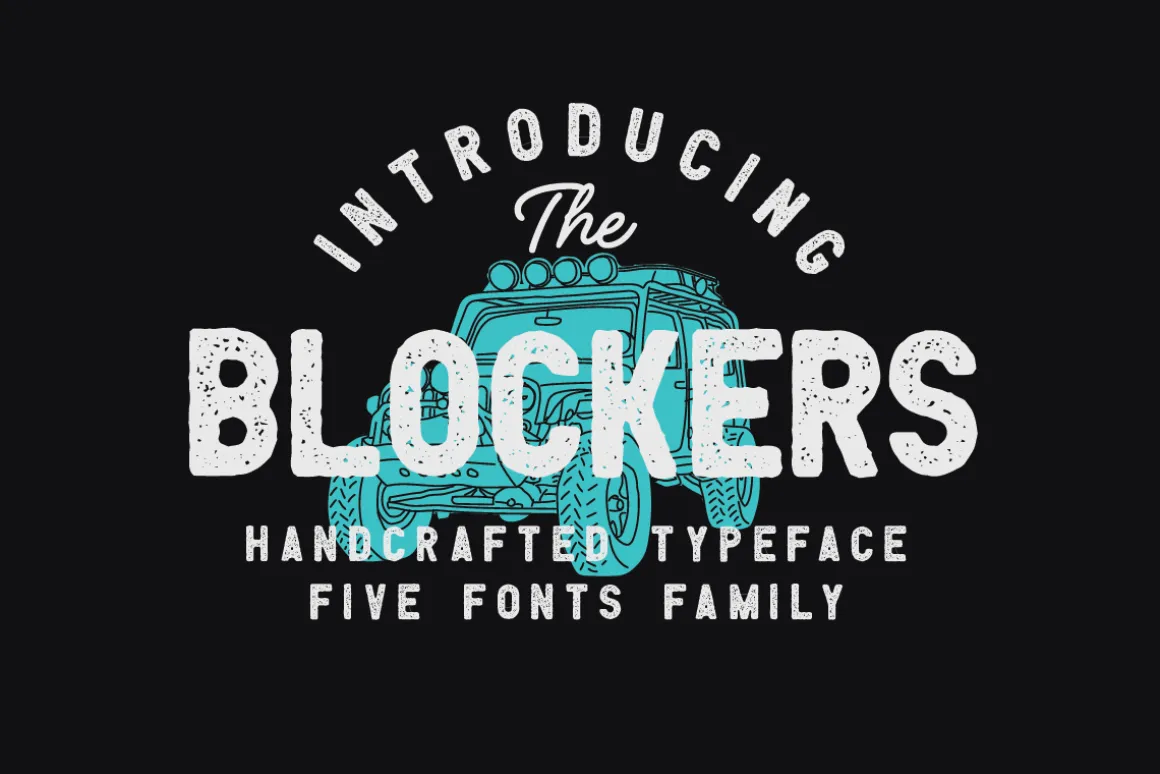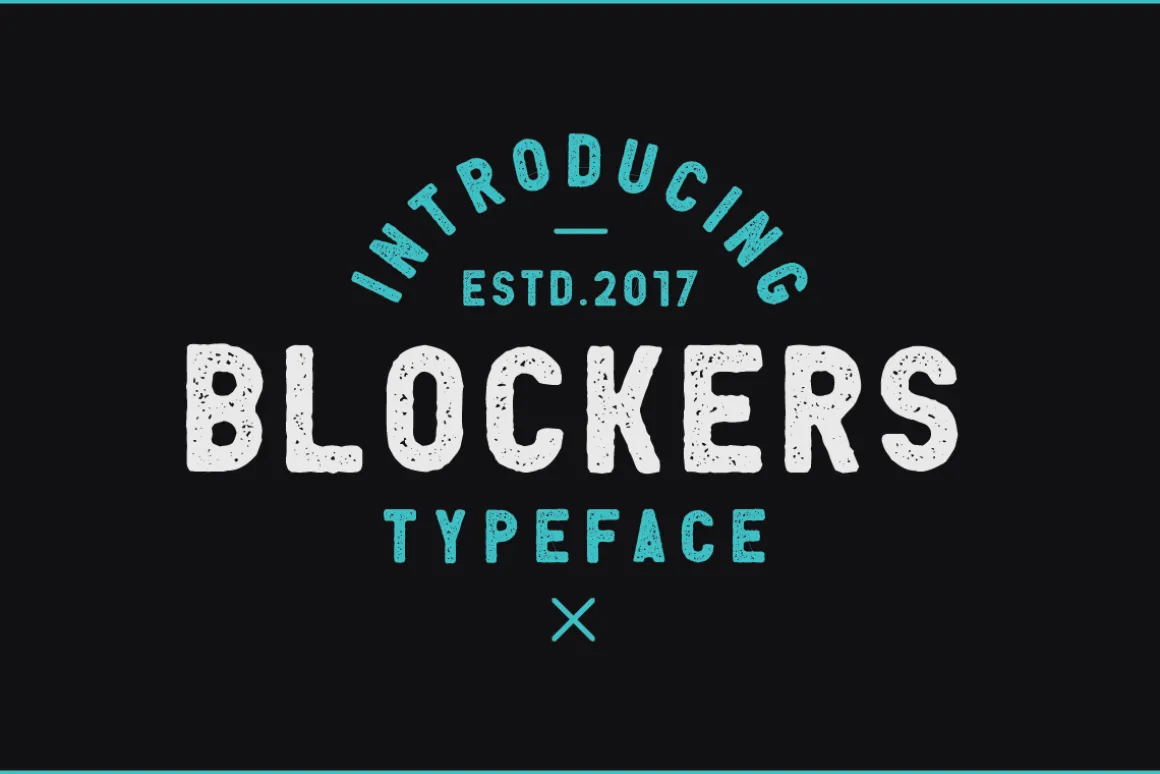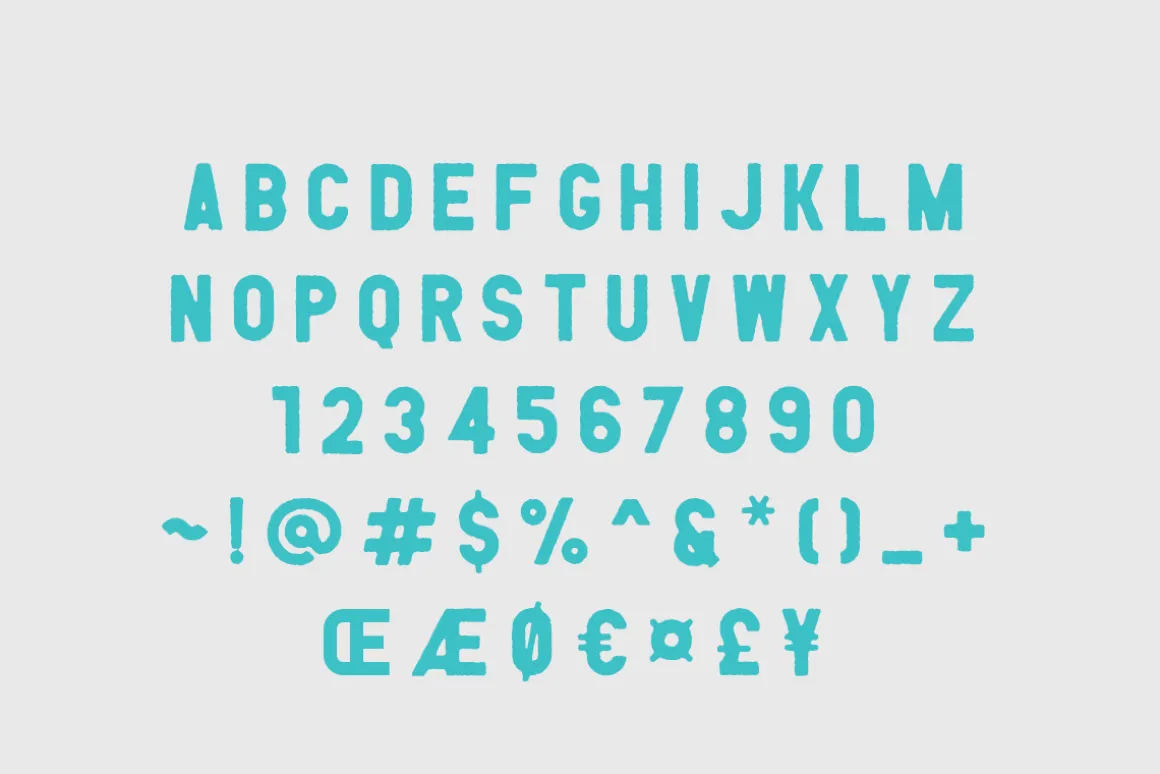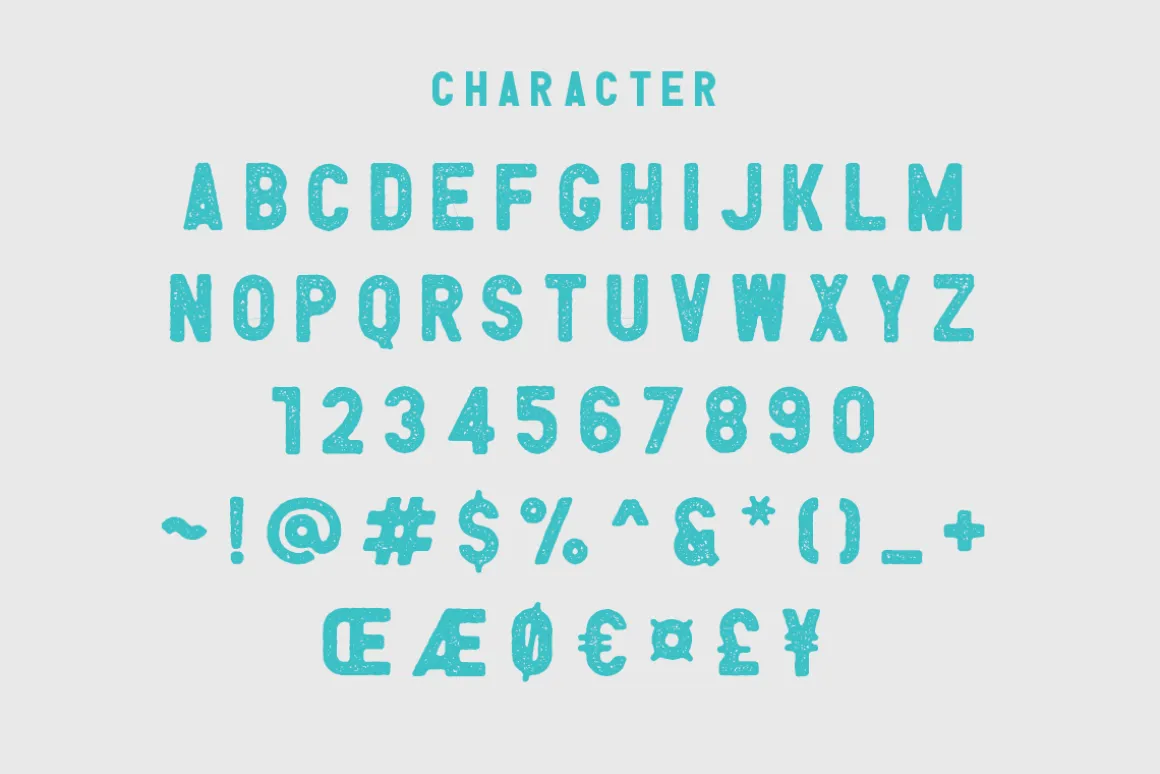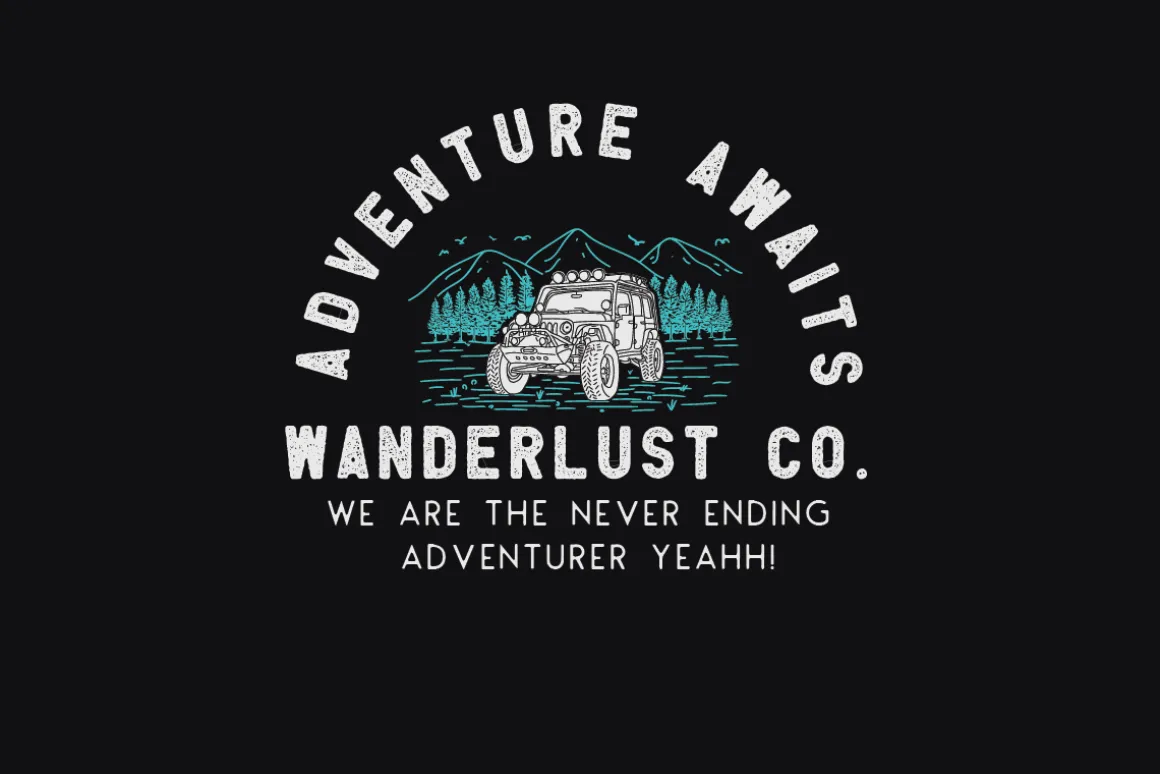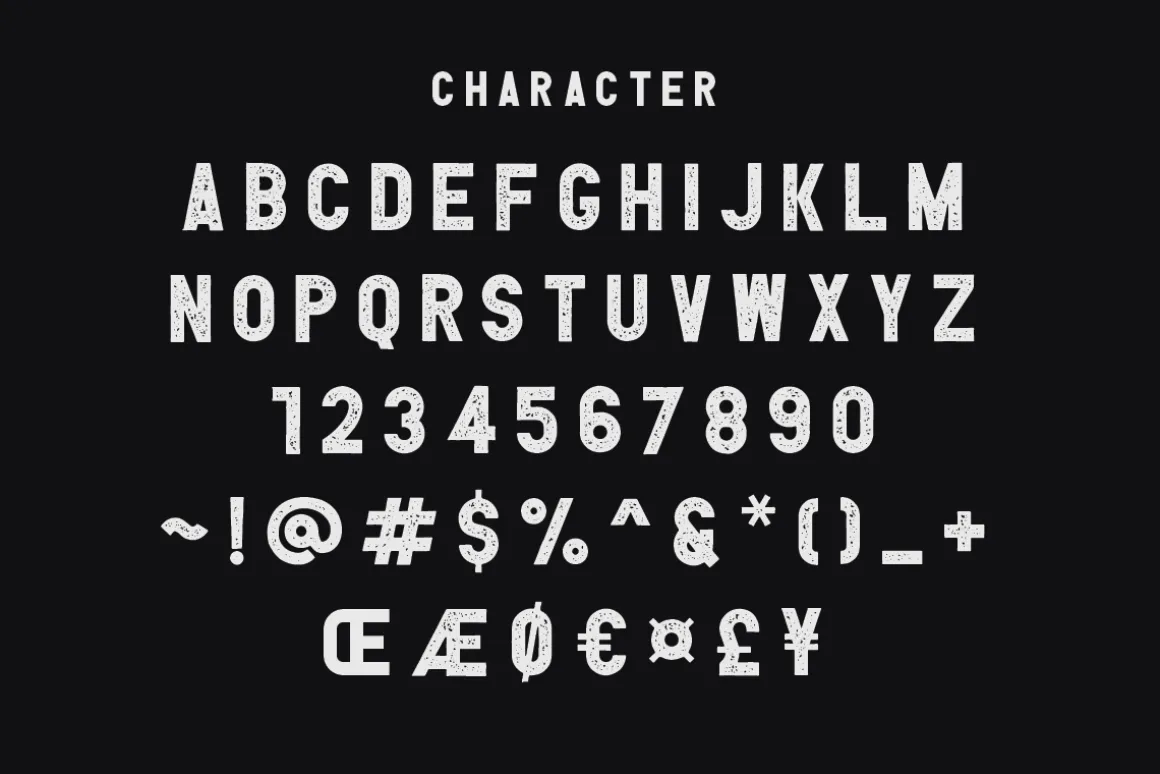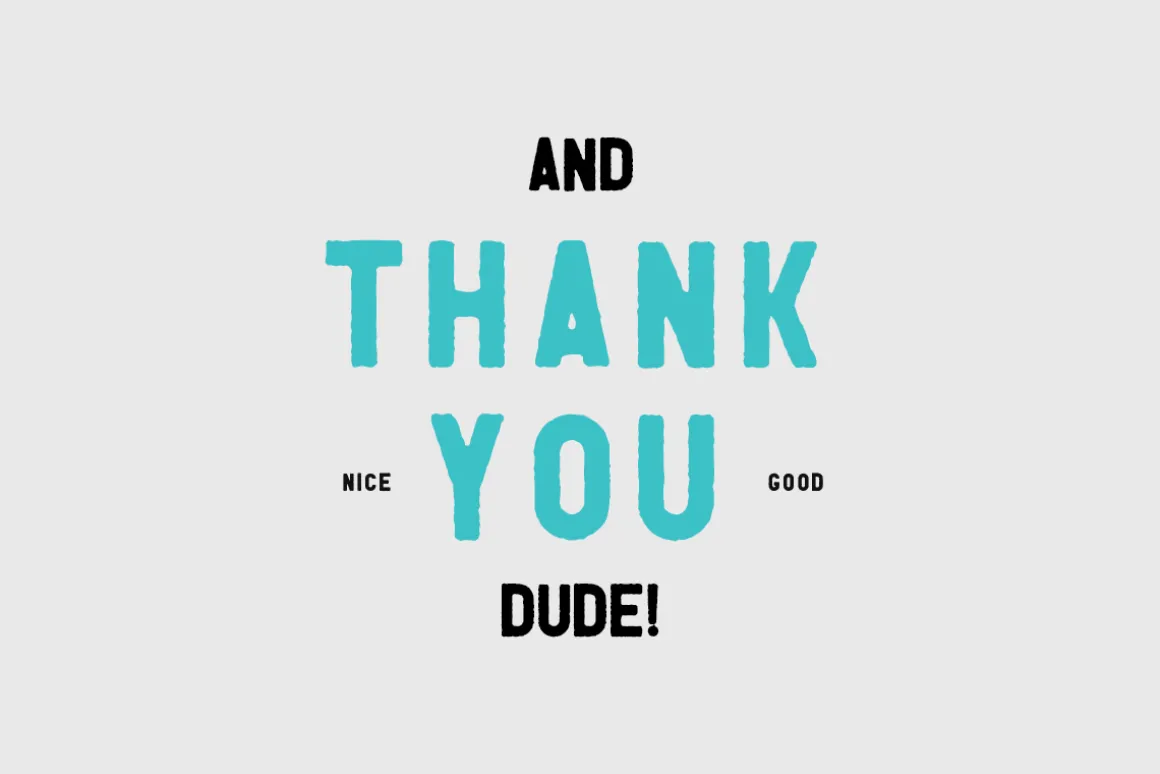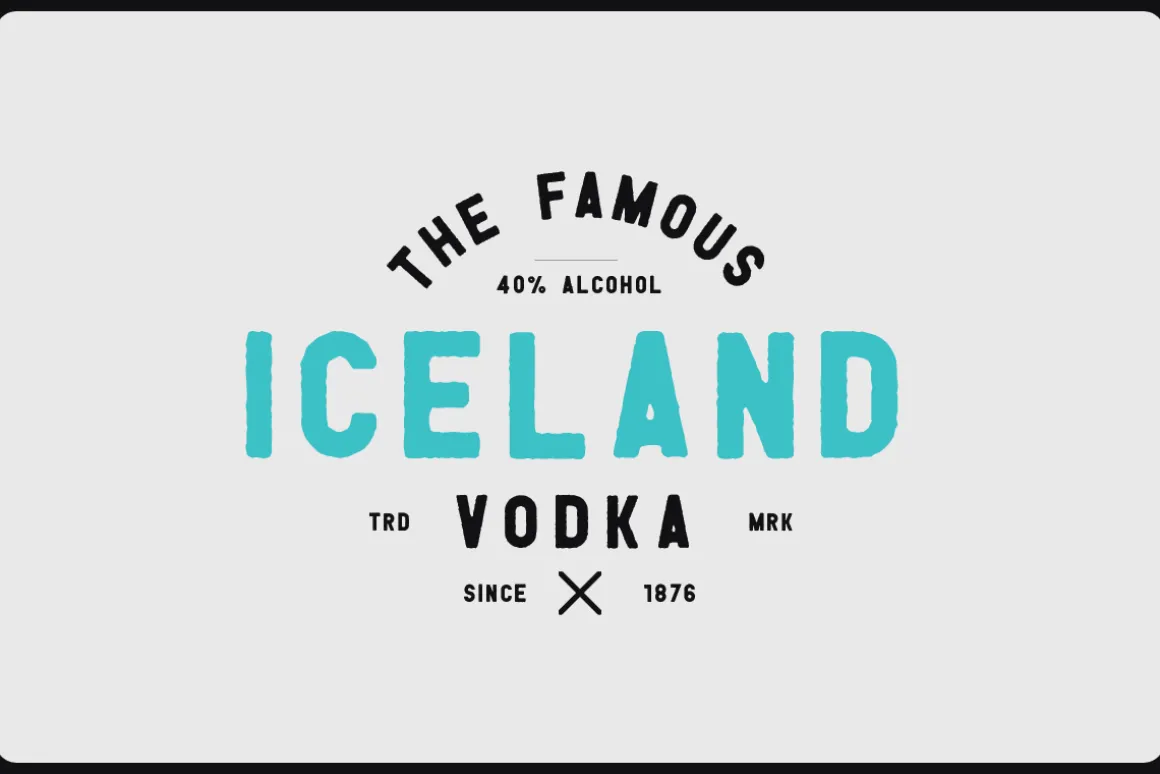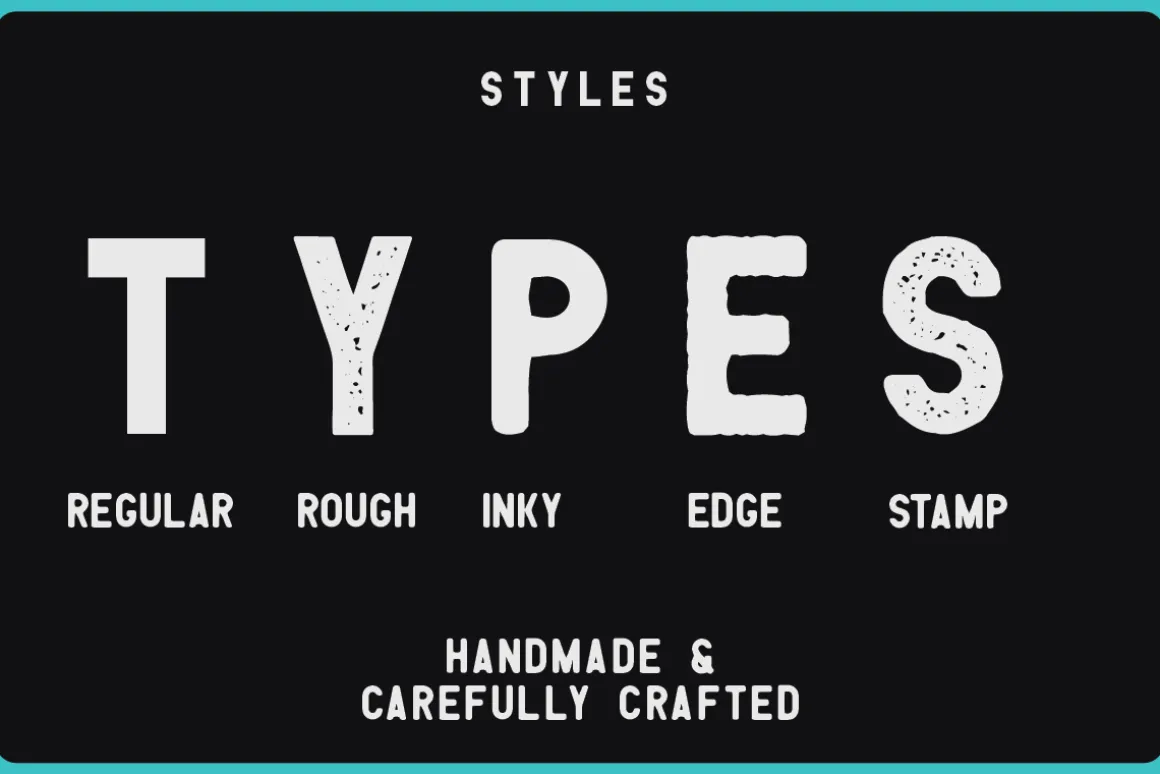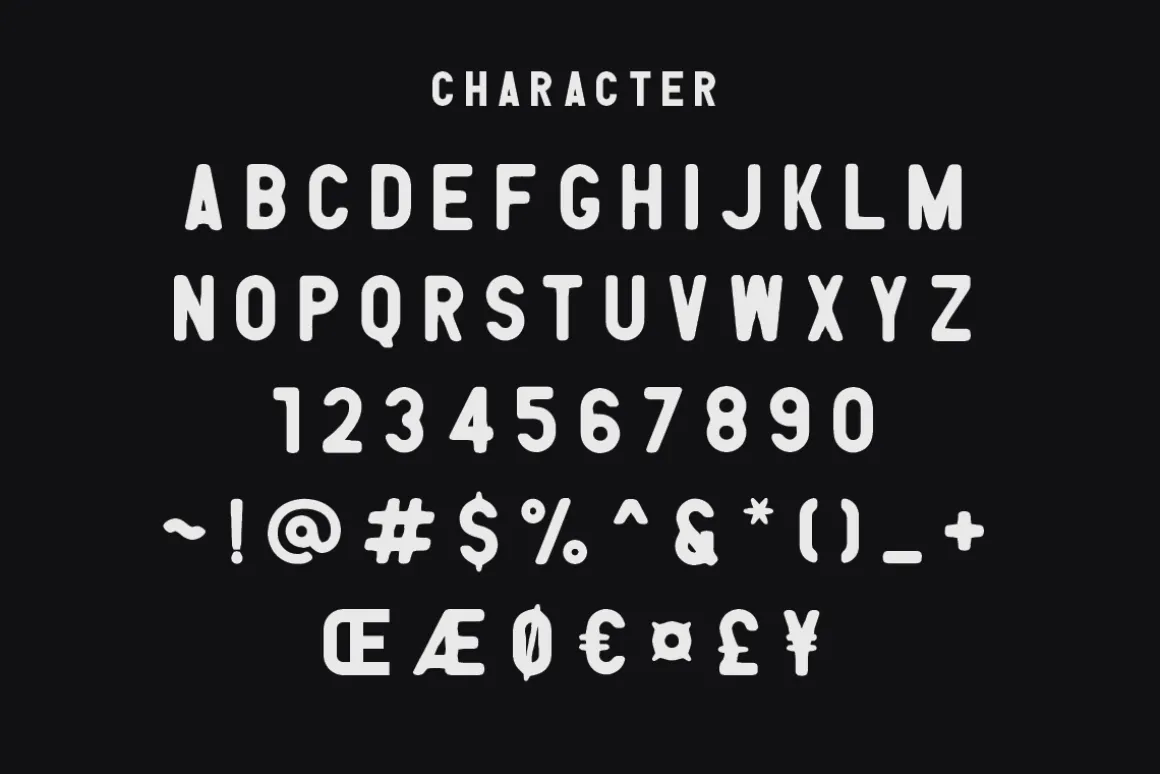
INTRODUCING The Blockers sans.This sans serif font designed with carefully handcrafted also this font have 5 fonts family, very suitable for t-shirt, vintage design, sign, badge, labels, and many more!
- Blockers Regular
- Blockers Inky
- Blockers Stamp
- Blockers Rough
- Blockers Edge
Multilingual Support support many different languages 20+ .